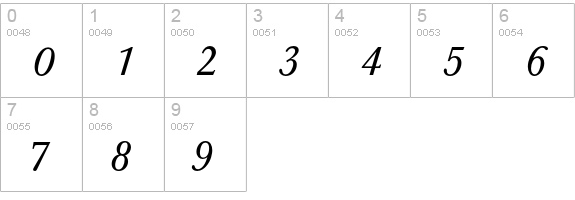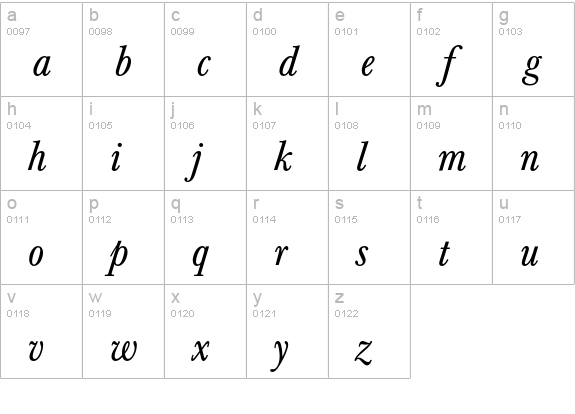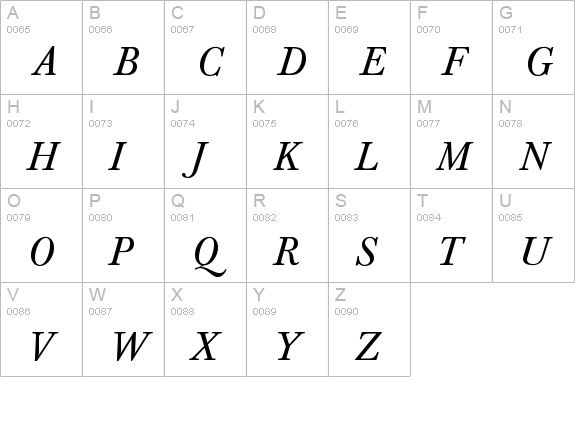
Berthold Baskerville Italic is a distinctive, italic variant in the Berthold typeface family \xE2\x80\x94 well suited to design and typography projects.
Berthold Baskerville Italic font exudes elegance and sophistication with its sleek and slanted design. Its flowing curves and stylish flourishes add a touch of refinement to any project, making it perfect for adding a touch of class to invitations, branding materials, and editorial designs. This versatile font is free to download at FontsMarket.com, allowing you to effortlessly elevate your creations with a touch of timeless charm. Whether used for headings, quotes, or body text, Berthold Baskerville Italic font is sure to make a statement with its classic yet contemporary appeal.